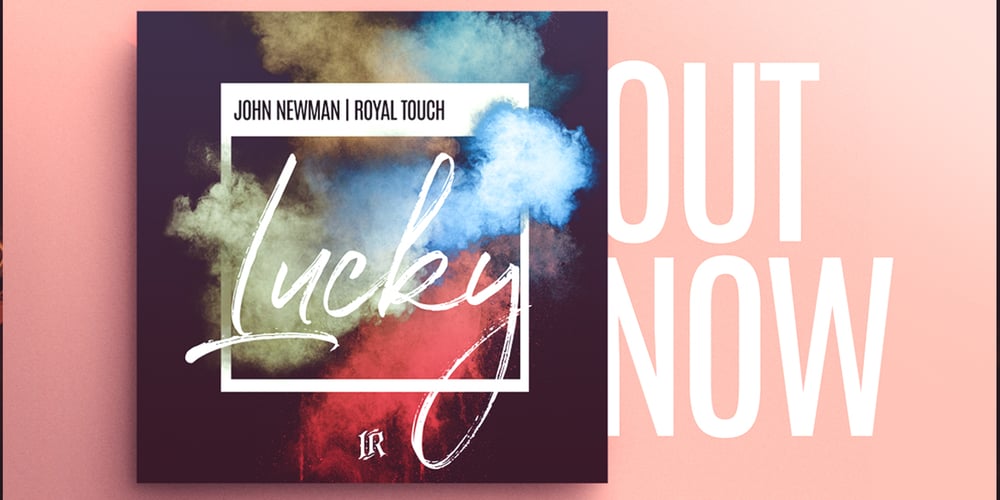
Royal Touch Font Family was designed by Ivan Rosenberg and published by Ivan Rosenberg. Royal Touch contains 1 styles and family package options. Royal Touch is hand brushed font with multilingual support. It is ideal for t-shirts, magazines, phone covers, social media, restaurant menus, greeting cards, invitations, weddings, headers and many more. This brush font comes with a complete set of lowercase and uppercase characters, a large range of punctuation ligatures, numerals and and multilingual support. Royal Touch is a set of 419 glyphs, Upper and Lowercase characters with automatic ligatures, numerals, lot of punctuation glyphs and 2 alternates for each character. For access to Stylistic Alternates is required software with glyphs panel like Photoshop, lllustrator, Inkscape etc. Ligatures shows up automatically.